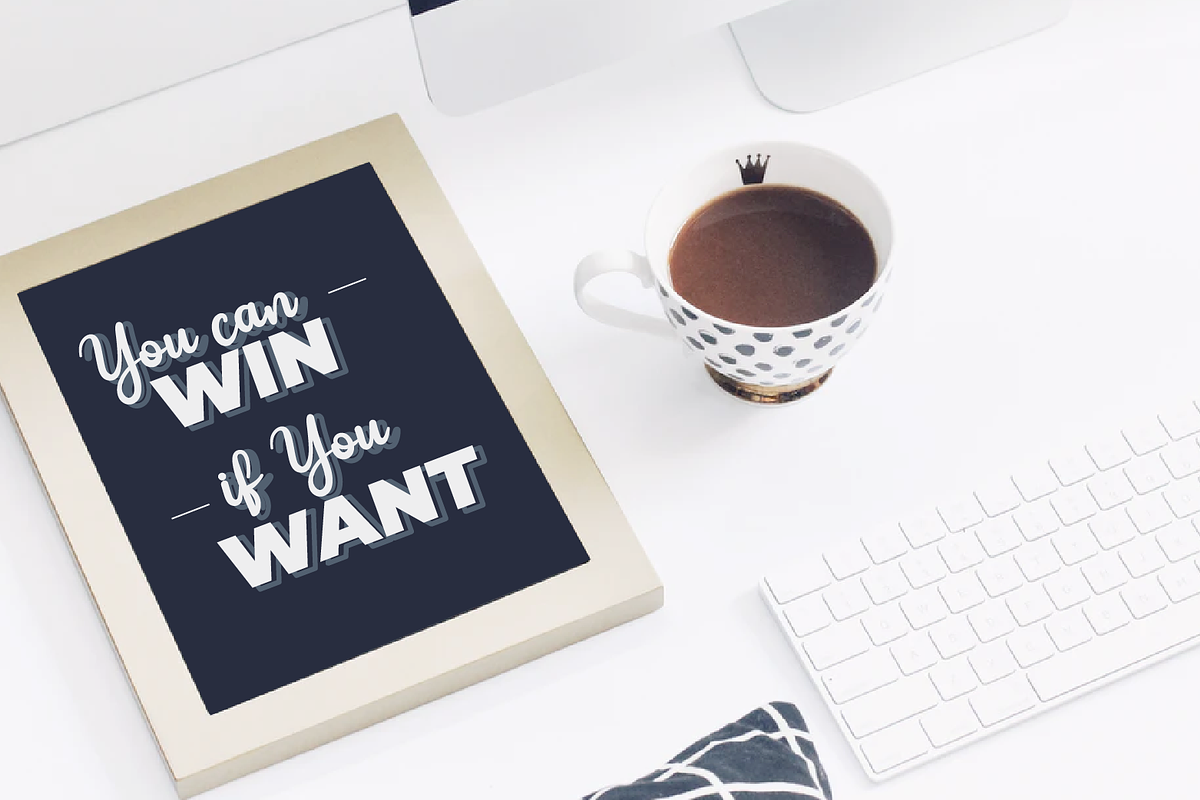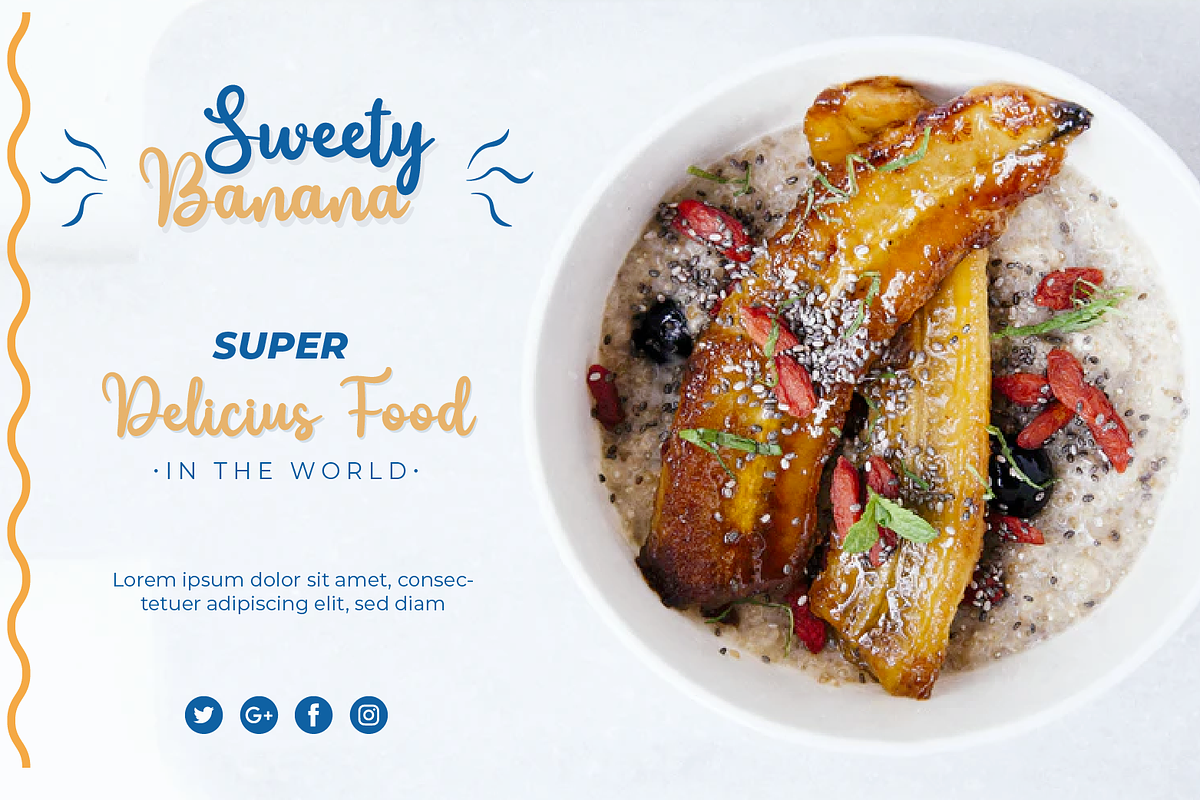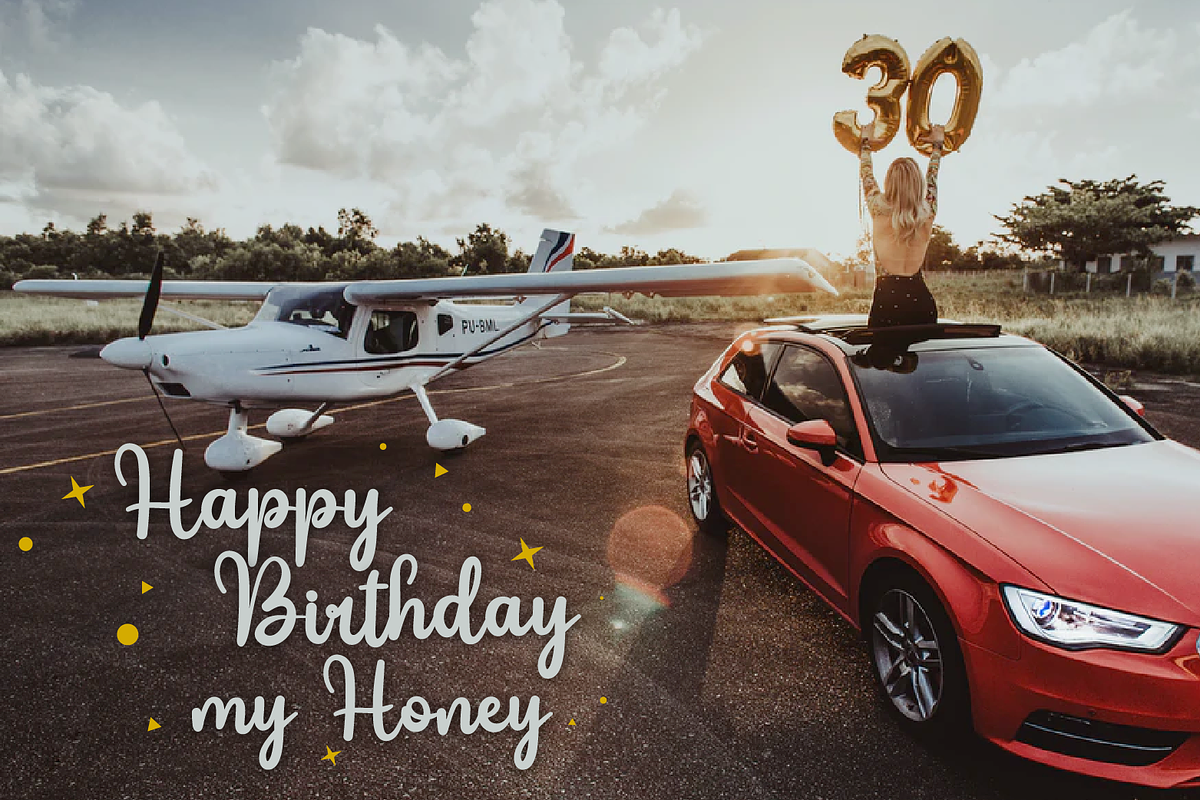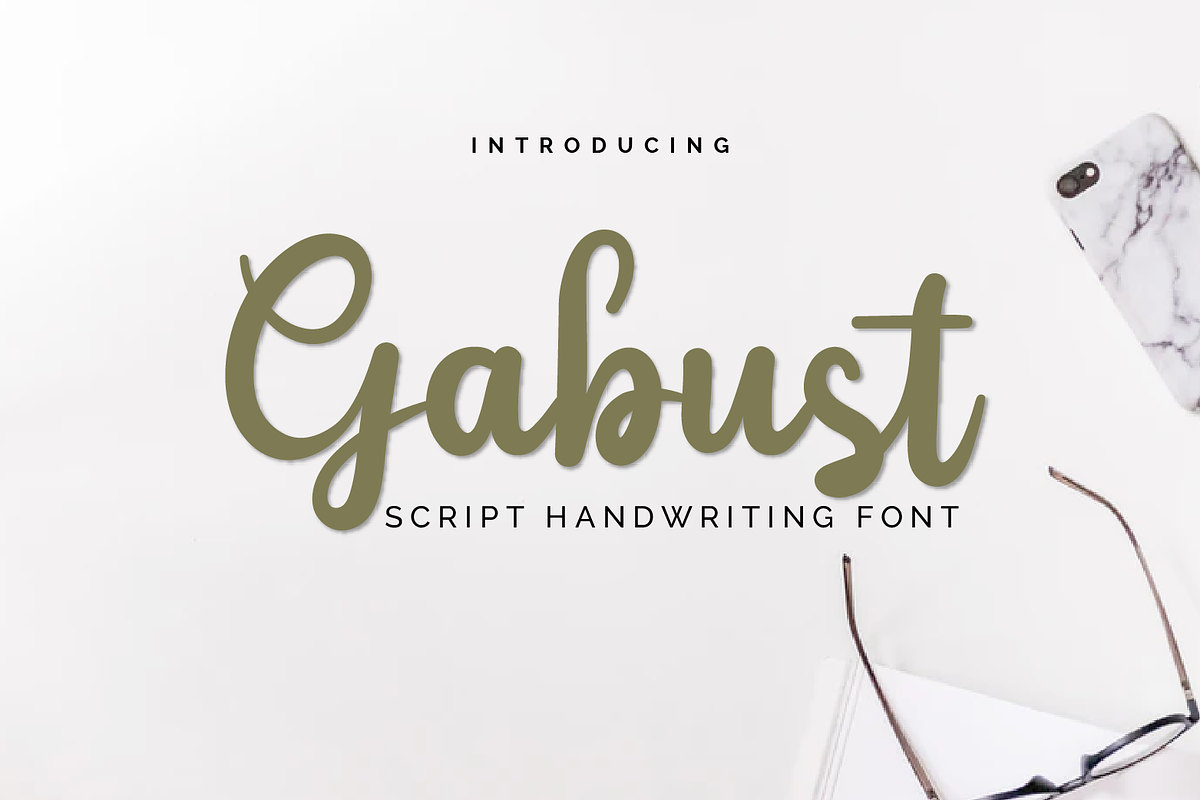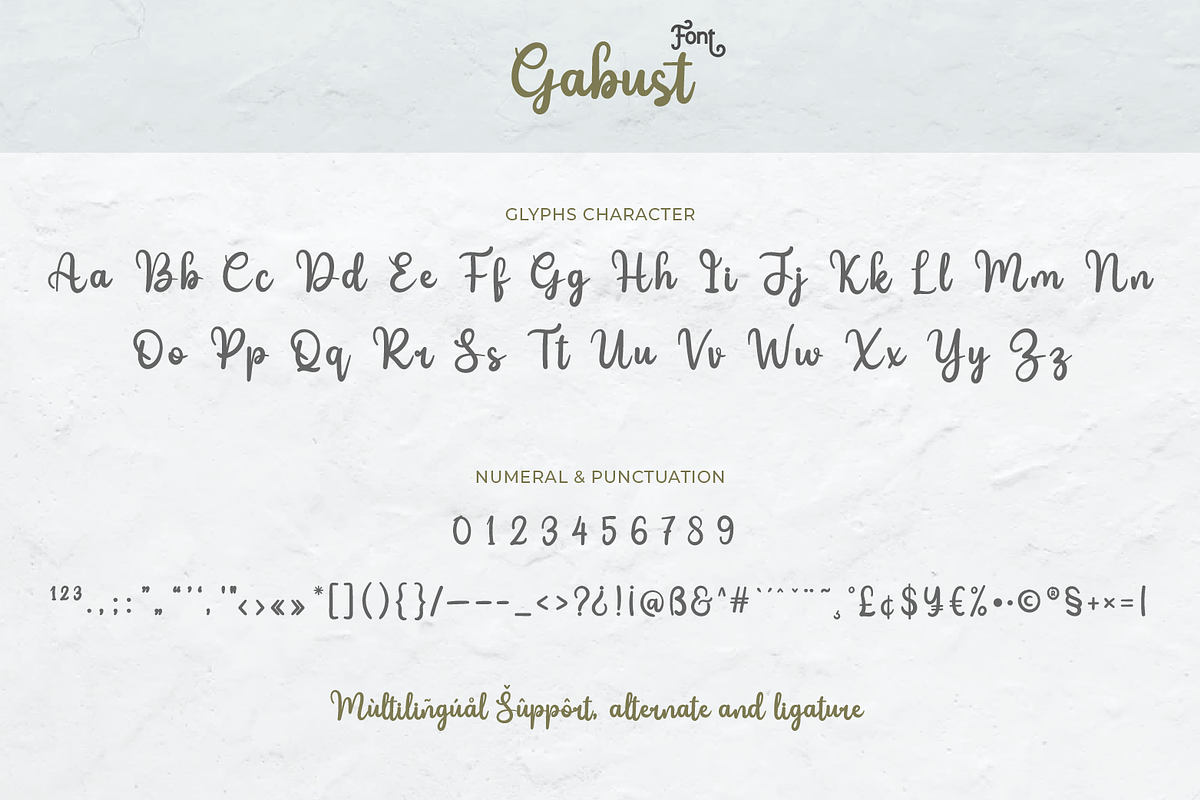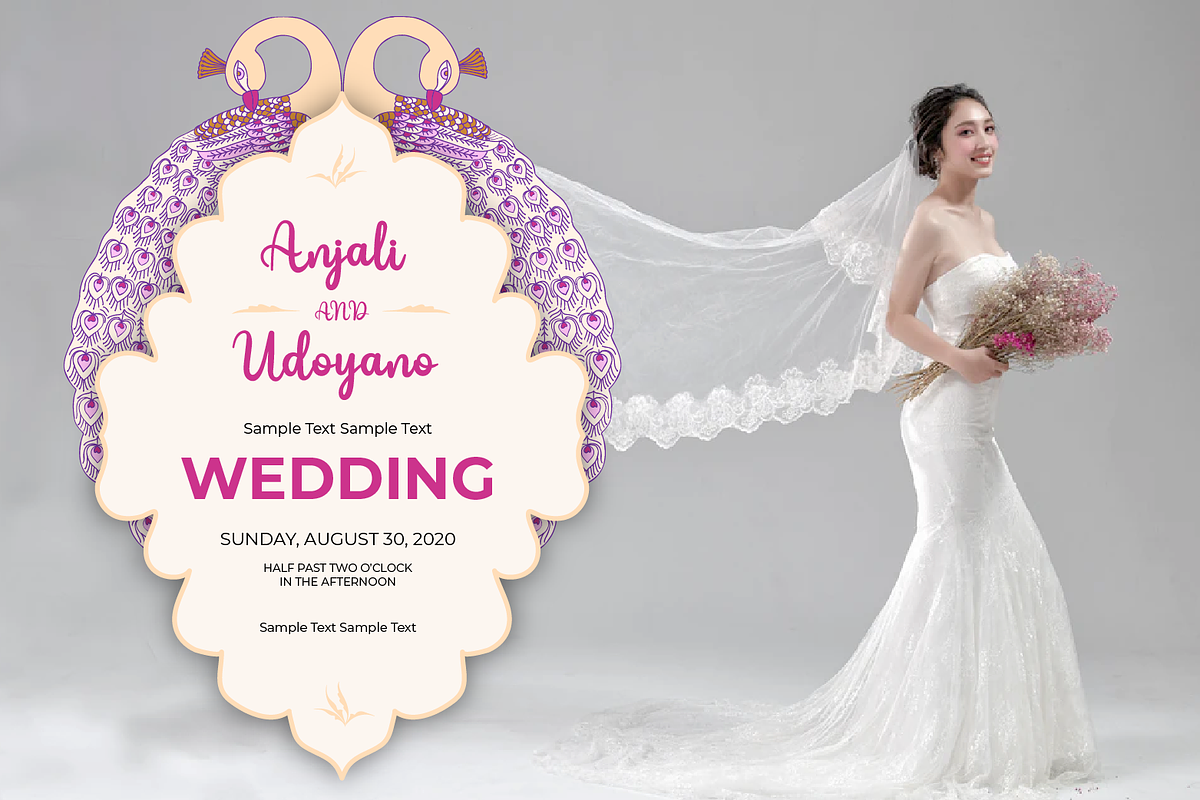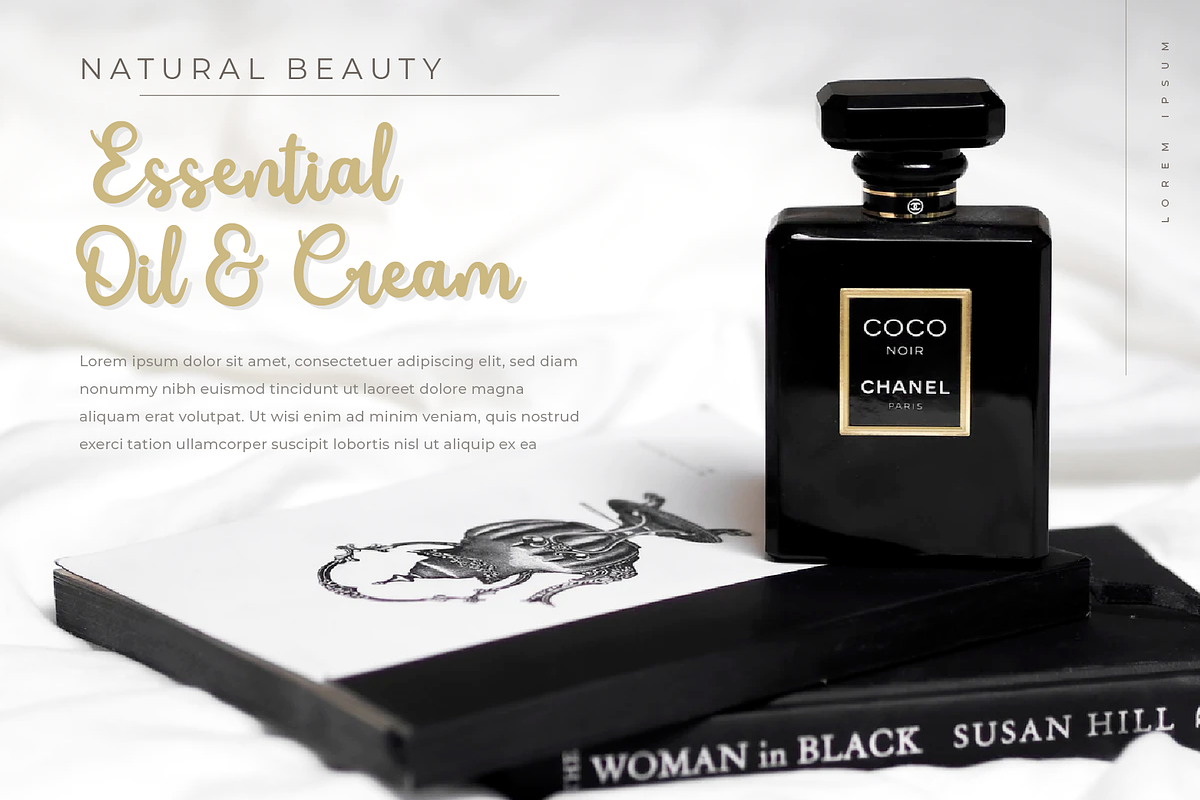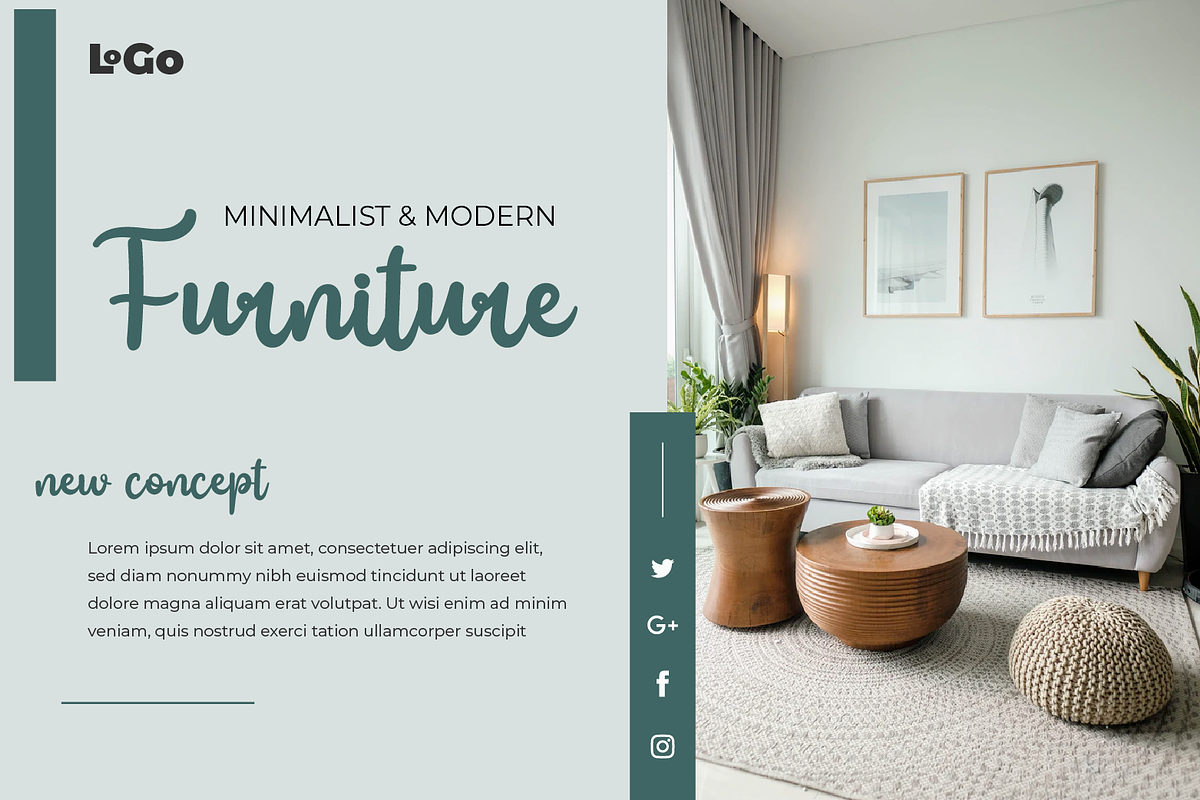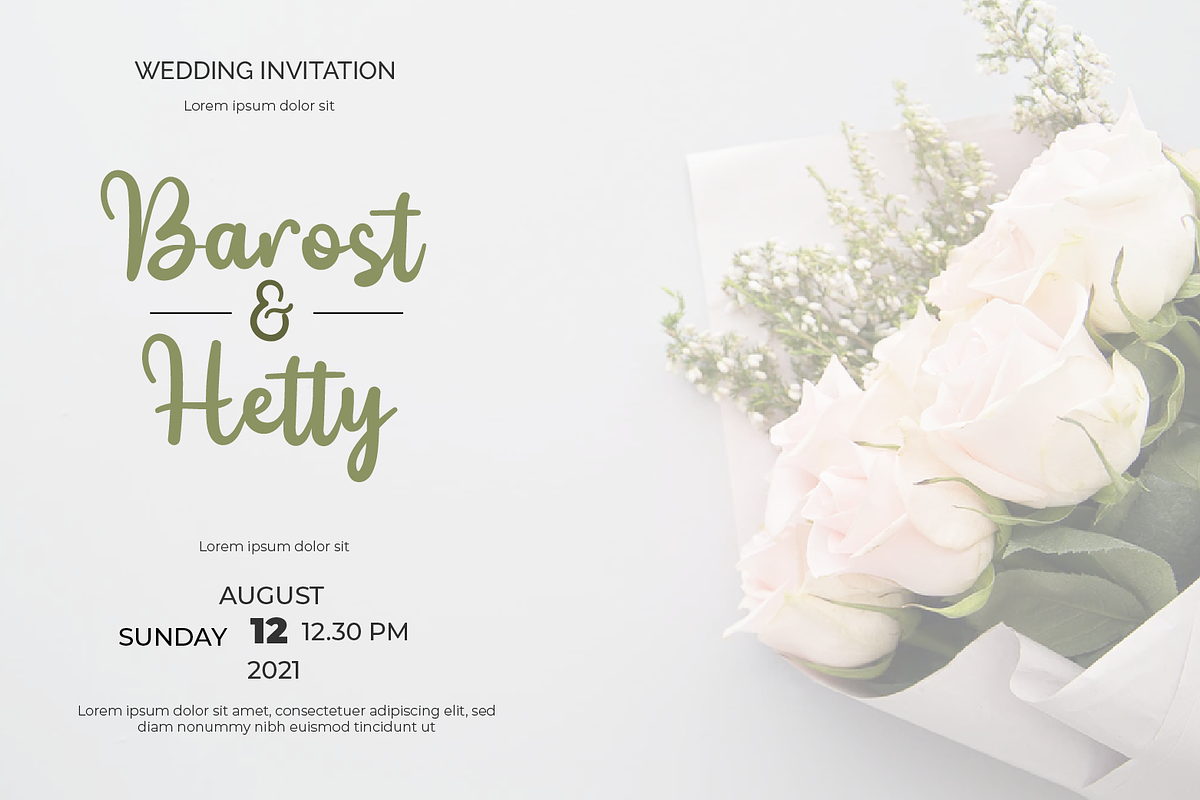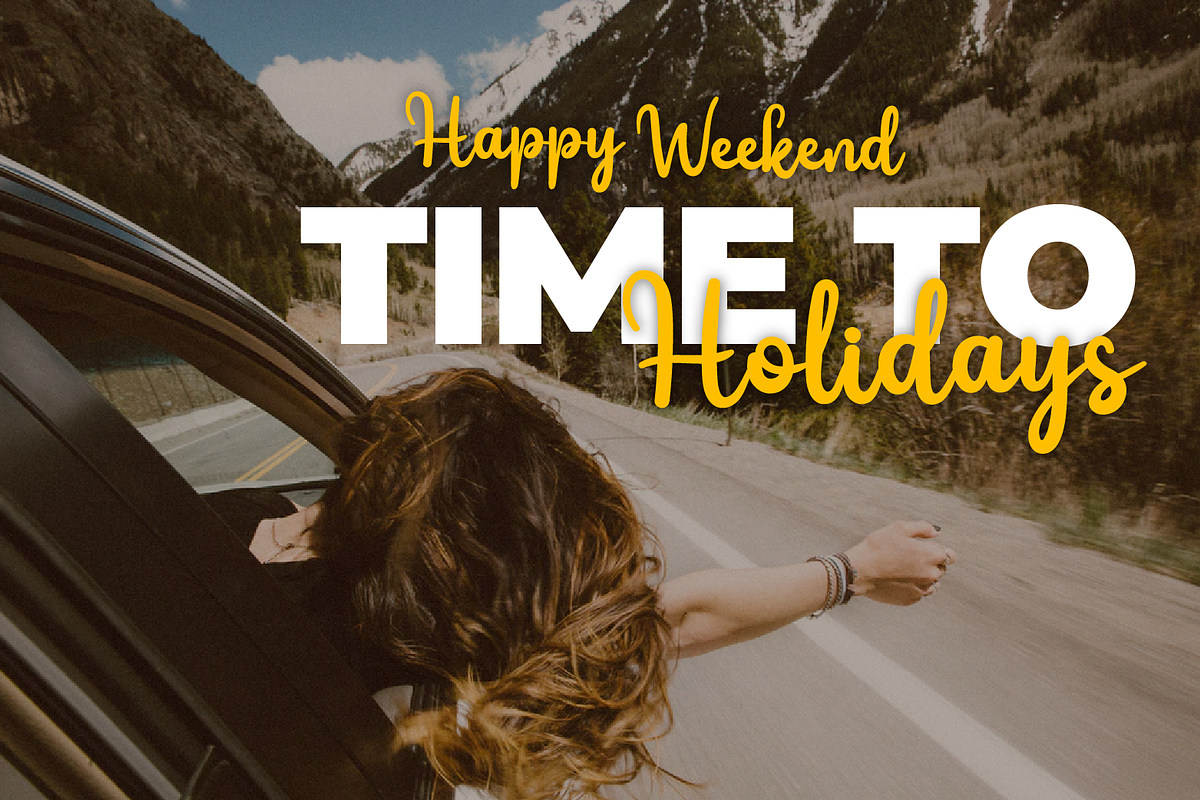
Gabust
Gabust is a sweet and delicate handwritten font. Dainty and joyful, this font will be ideal for writing wedding invitations, cards, or any other design that may need a romantic, personalized touch!
This font is designed with a natural touch of handwriting which is refined to create a portion and composition that suits your needs. So this font is suitable for craft, children’s writing, adventure posters, food banner titles, wedding invitations, product packaging logos, quotes, social media page covers, furniture banner headlines, book covers, and much more.